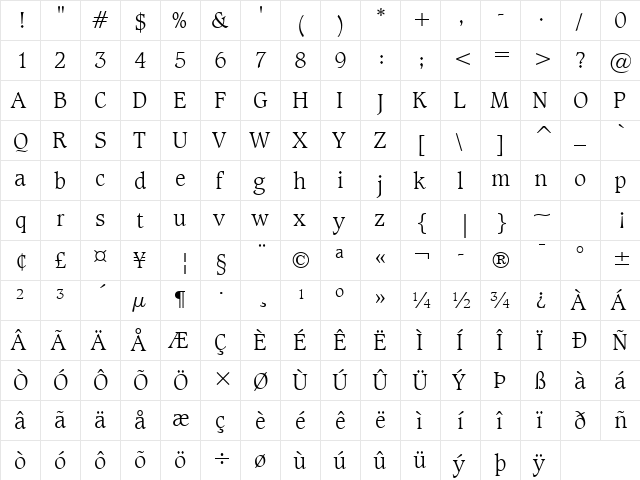
Caxton Light
Design Context for Caxton Typeface
Caxton offers clean, dependable letterforms without strong stylistic allegiance, making it a practical choice for designers who need flexibility. Its slender proportions lend an understated elegance to any composition.
Pro Tip: Use Caxton in both headline and body roles to test its range before committing to a single application.